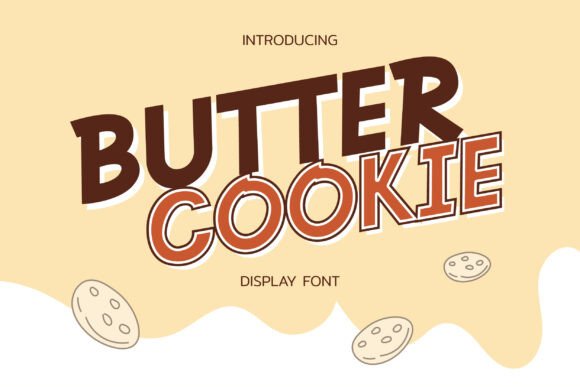
The Sweetest Font You’ll Ever Meet: Butter Cookie πŸͺ
I’ll never forget the time I was working on a branding project for a local bakery. I had all the elements in place – the color palette, the logo concept, and the overall aesthetic – but something was missing. The font I had chosen just wasn’t doing justice to the warm, inviting vibe of freshly baked goods. That’s when I stumbled upon Butter Cookie, a playful display font that instantly transported me to a world of sweet treats and warm memories.
First Impressions: A Love Affair with Butter Cookie
Butter Cookie is more than just a font – it’s an experience. With its heavy, bold weight and soft, slightly irregular terminals, it captures the approachable charm of a handmade treat. The font features both solid and β€œbaked-in” outline styles that pair perfectly to create depth and visual interest. Here are some things I love about Butter Cookie:
• ✨ **Warm and inviting**: The font’s chunky, playful design instantly conveys a sense of comfort and friendliness.
• βœ… **Highly versatile**: From bakery branding to children’s snack packaging, playful dessert menus, and cheerful social media graphics, Butter Cookie is the perfect choice for a wide range of design projects.
• πŸ’‘ **Easy to read**: Despite its bold weight, the font remains surprisingly legible, even at smaller sizes.
The Not-So-Perfect Truth: A Few Quirks to Consider
While Butter Cookie is an amazing font, it’s not without its limitations. Here are a few things to keep in mind:
• πŸ€” **Limited use in formal contexts**: Due to its playful, informal design, Butter Cookie might not be the best choice for more formal projects, such as corporate branding or official documents.
• ⚠️ **May not work well in small sizes**: While the font remains legible at smaller sizes, it may lose some of its charm and character when reduced too much.
The Story Behind Butter Cookie: A Designer’s Inspiration
Butter Cookie was designed by a team of creatives who wanted to capture the warmth and charm of freshly baked goods. Inspired by the soft, chewy texture of butter cookies, they crafted a font that’s both playful and inviting. Whether you’re a designer, crafter, or creative hobbyist, Butter Cookie is sure to become your go-to font for sweet design projects.
With Butter Cookie, your message is guaranteed to be as comforting and inviting as a fresh batch out of the oven πŸͺ. So go ahead, indulge in this sweet font, and make your design projects a little more delicious!